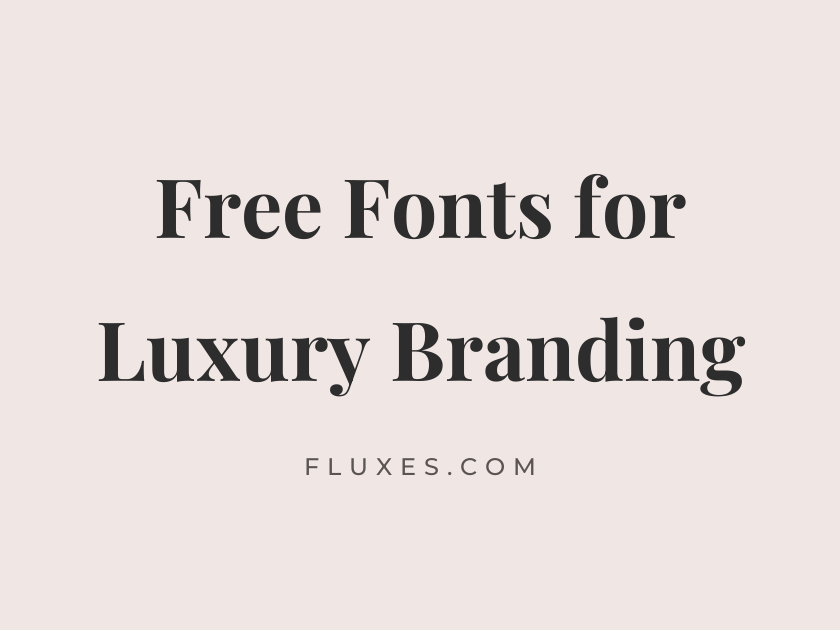
60 Best Free Fonts for Luxury Branding
Luxury branding lives or dies on typographic restraint. The difference between a brand that feels expensive and one that feels ordinary often comes down to letterforms: the contrast of a hairline serif, the patience of generous tracking, the confidence of a single well-chosen script. Many of the world’s most recognizable luxury marks lean on typefaces like Didot, Bodoni, Trajan, or Optima, and while those specific cuts carry licensing costs, Google Fonts hosts an enormous range of free alternatives that capture the same high-end sensibility.
Whether you are designing a fashion logotype, a hotel brochure, a perfume label, or a jewelry monogram, the fonts below offer the elegance, poise, and craftsmanship that luxury branding demands, all without a licensing fee.
Few free serifs carry the editorial glamour of Playfair Display. Its dramatic thick-thin contrast and high waist give headlines a fashion-magazine polish that instantly reads as premium.
It thins out at small sizes, so reserve it for logotypes, headers, and cover typography rather than body copy.
Delicate and jewelry-like, Cormorant Garamond takes the warmth of old-style Garamond and stretches it into something almost fragile. Best used large, on invitations, packaging, or above-the-fold headlines where its fine hairlines can breathe.
A faithful revival of Claude Garamont’s Renaissance letterforms, EB Garamond brings scholarly authority and warmth to brand copy. It pairs naturally with a bolder display serif for a two-tier luxury type system.
Bodoni Moda updates the classic didone with optical sizing built in, so it stays crisp from tiny captions to poster-scale type. Fashion houses and beauty brands gravitate toward it for that razor-sharp, catwalk energy.
Prata carries a stately, almost architectural weight that suits estates, wineries, and heritage institutions looking for gravitas rather than trend.
There is a calm authority to Marcellus that makes it ideal for hospitality branding. It never shouts, which is exactly the point in five-star signage and wayfinding.
Drawing on classical capital letterforms, Cinzel gives crests, seals, and monogram marks an inscribed, monumental feel. It works beautifully for jewelry houses and heritage brands trading on longevity.
The decorative sibling of Cinzel adds swashes and flourish, best reserved for a single word, initial, or emblem rather than running text.
Italiana’s slender caps and lowercase feel almost whispered onto the page. It is a favorite for fashion and cosmetics wordmarks that want elegance without ornament.
When a luxury brand wants presence rather than subtlety, Abril Fatface delivers with its heavy, glossy didone curves reminiscent of vintage fashion posters.
Libre Caslon Text
A sturdy, highly readable Caslon revival that lends old-money credibility to body copy, menus, and brand storytelling.
Libre Caslon Display
Its companion display cut tightens the spacing and sharpens the contrast for headline use, making the pair a solid foundation for a print-heavy luxury identity.
Fraunces has a soft, almost wet-ink quality that suits craft-forward luxury: small-batch spirits, artisanal chocolate, handmade leather goods. Its variable axes let you dial the personality from crisp and formal to loose and characterful.
Pair it with a plain grotesque sans for contact details and fine print.
Spectral favors legibility and restraint over flourish, which makes it a smart choice for financial or professional-services brands that want luxury without ostentation.
Originally cut for Hebrew typesetting, Frank Ruhl Libre carries a bookish, intellectual weight that suits publishing houses, law firms, and legacy brands.
A quiet workhorse serif built for long-form reading, Crimson Pro handles catalog copy and editorial text with warmth and clarity.
Lora’s brush-influenced curves give it a contemporary, slightly calligraphic feel that reads well in both print brochures and web body text.
Limit scripts to a single word or short phrase. They read as prestige accents, not paragraph text.
With this range of serifs, sans-serifs, and scripts, building a refined, high-end typographic identity no longer requires a paid font license. The right pairing, used with restraint, is often all a luxury brand needs.